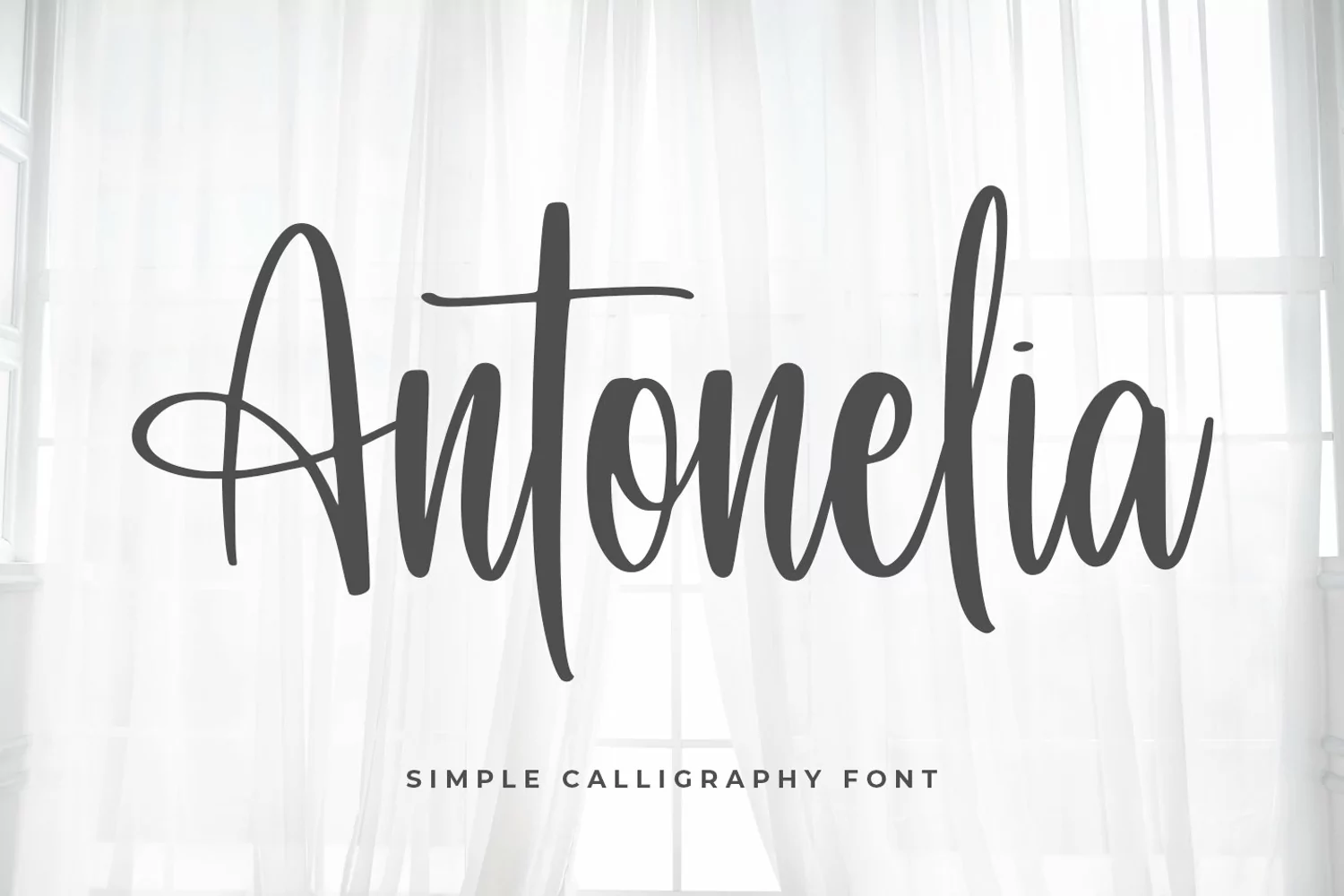
Antonelia
introducing
ANTONELIA
- simple calligraphy font-
ANTONELIA is beautiful handwritten font.
It is great for wedding, branding, quotes, logos, t-shirt designs, tote bag designs, cards, banners, social media, and more.